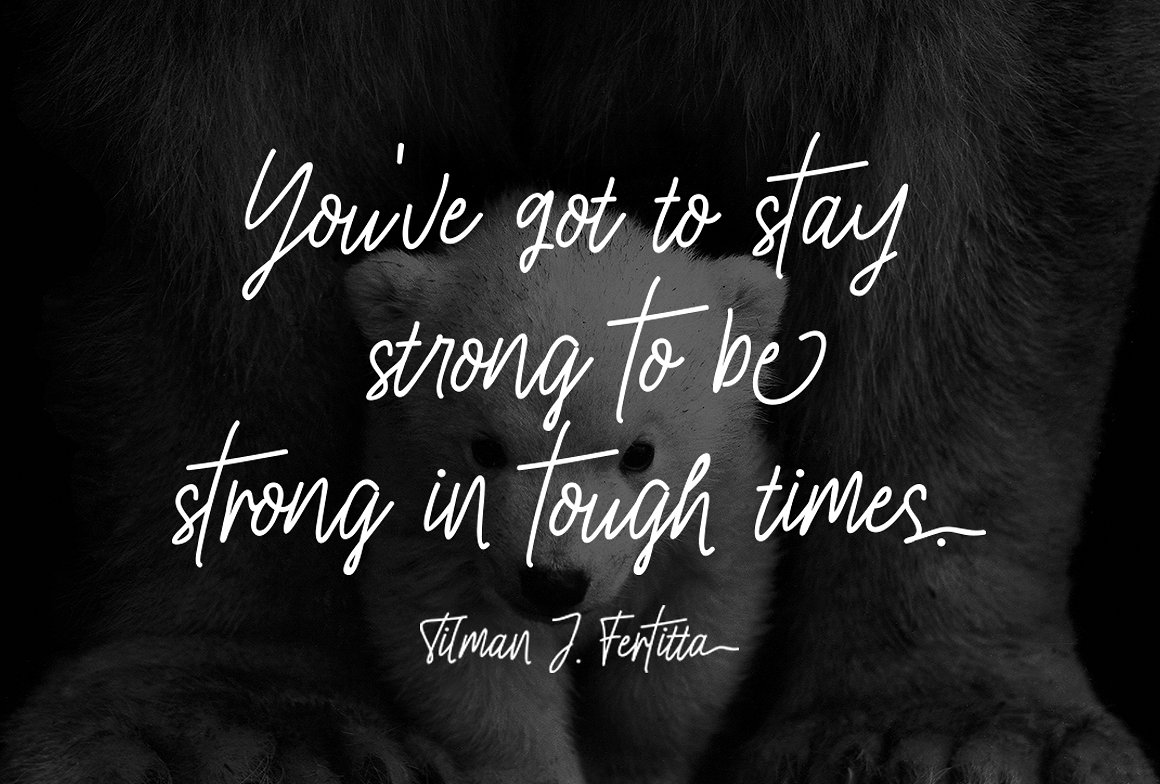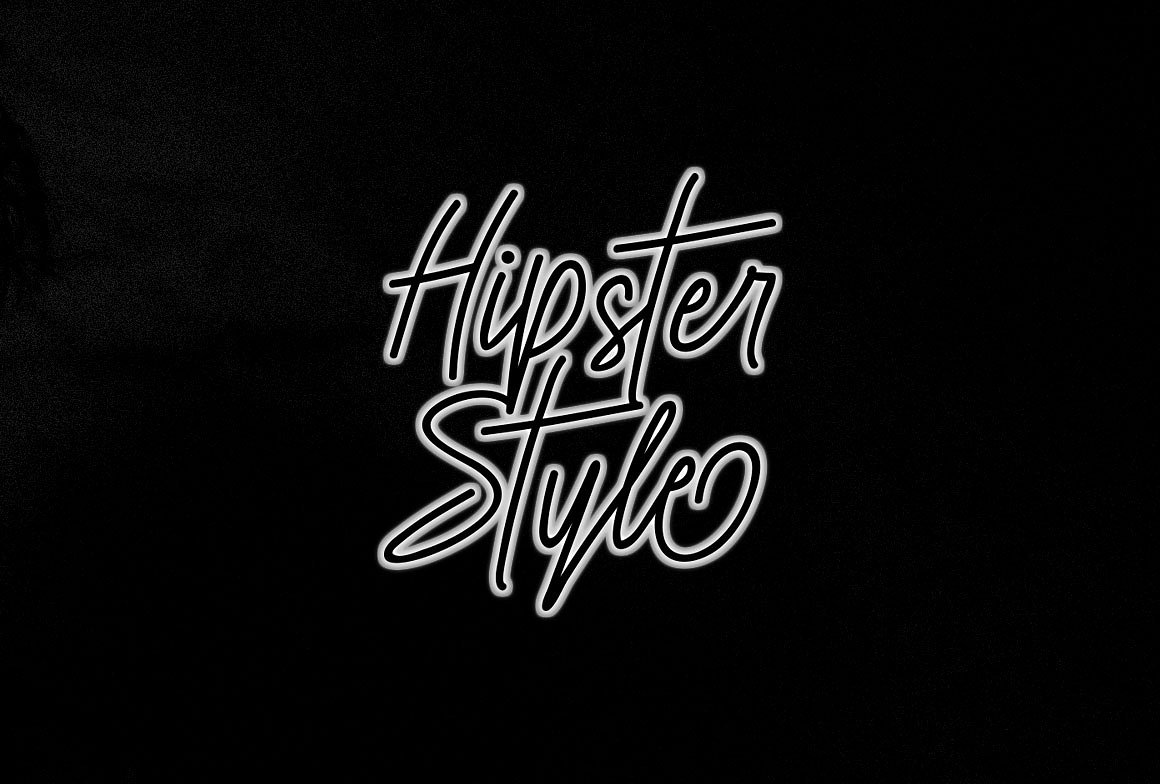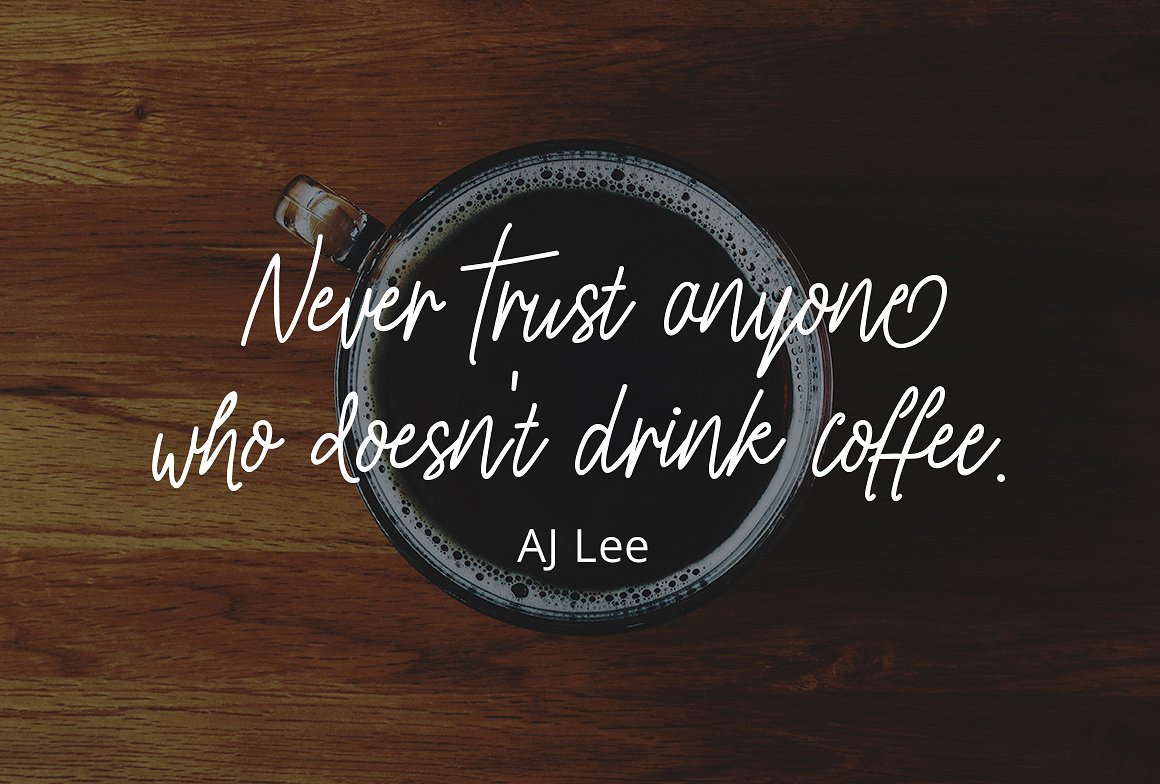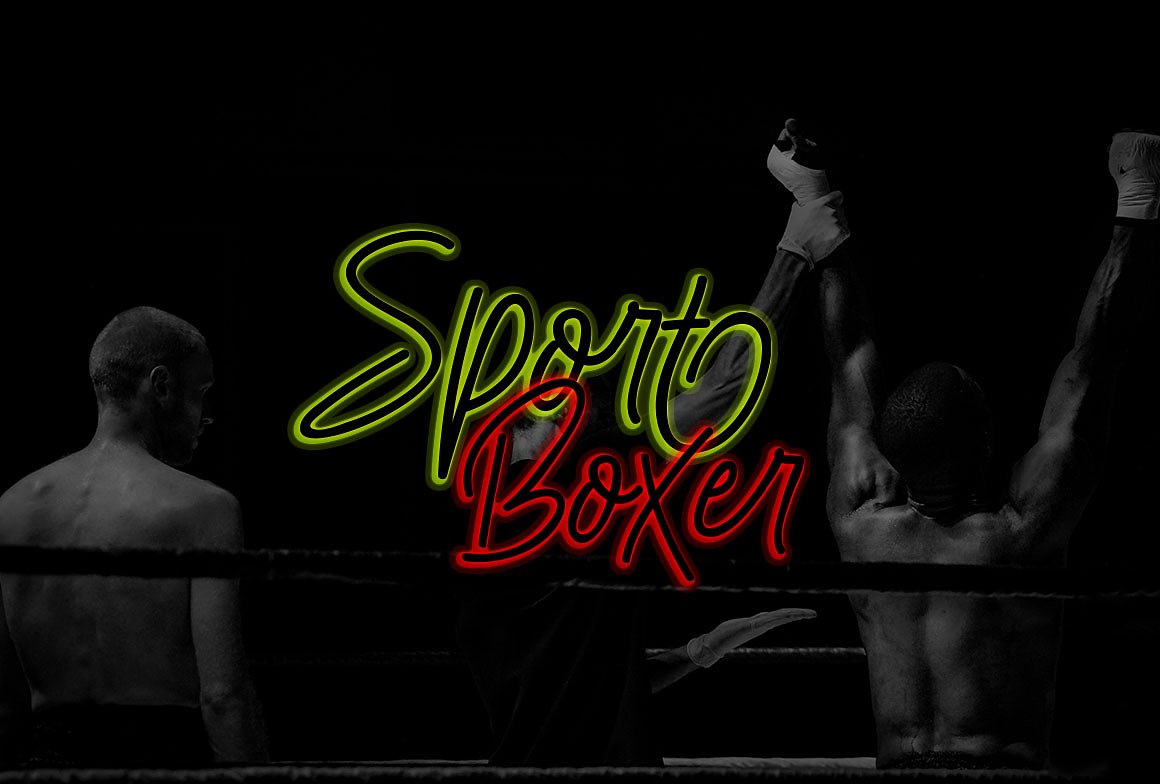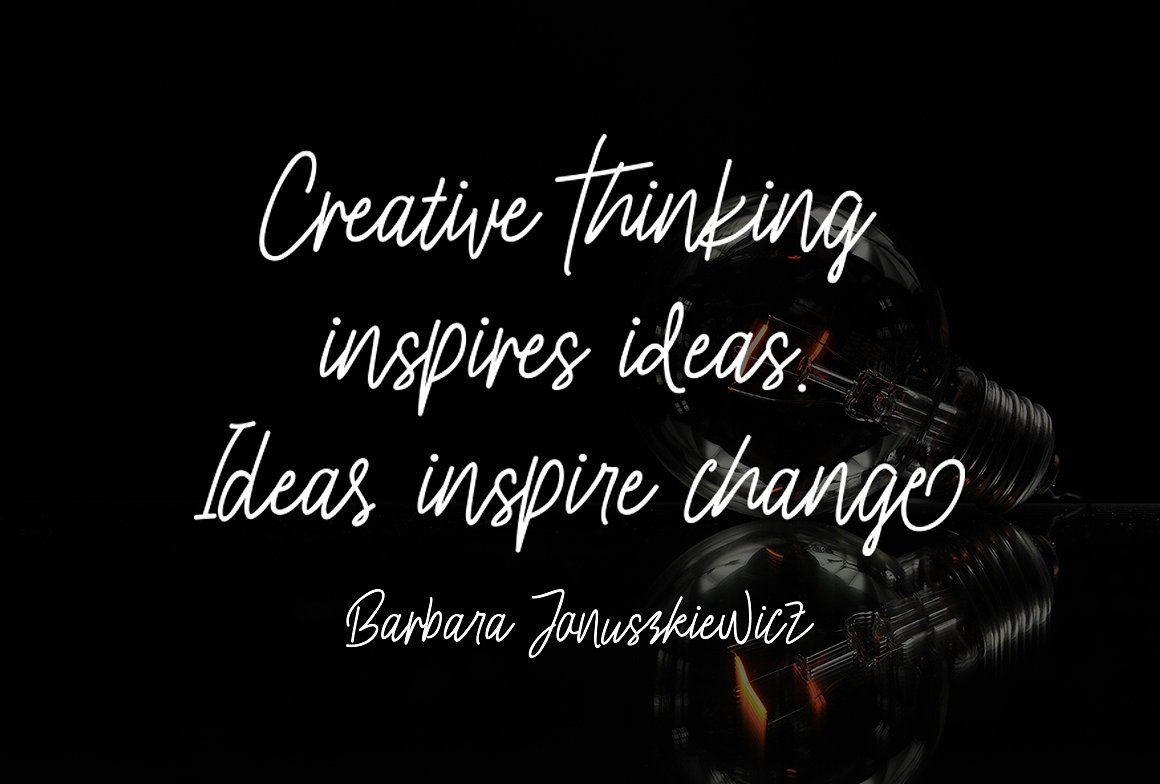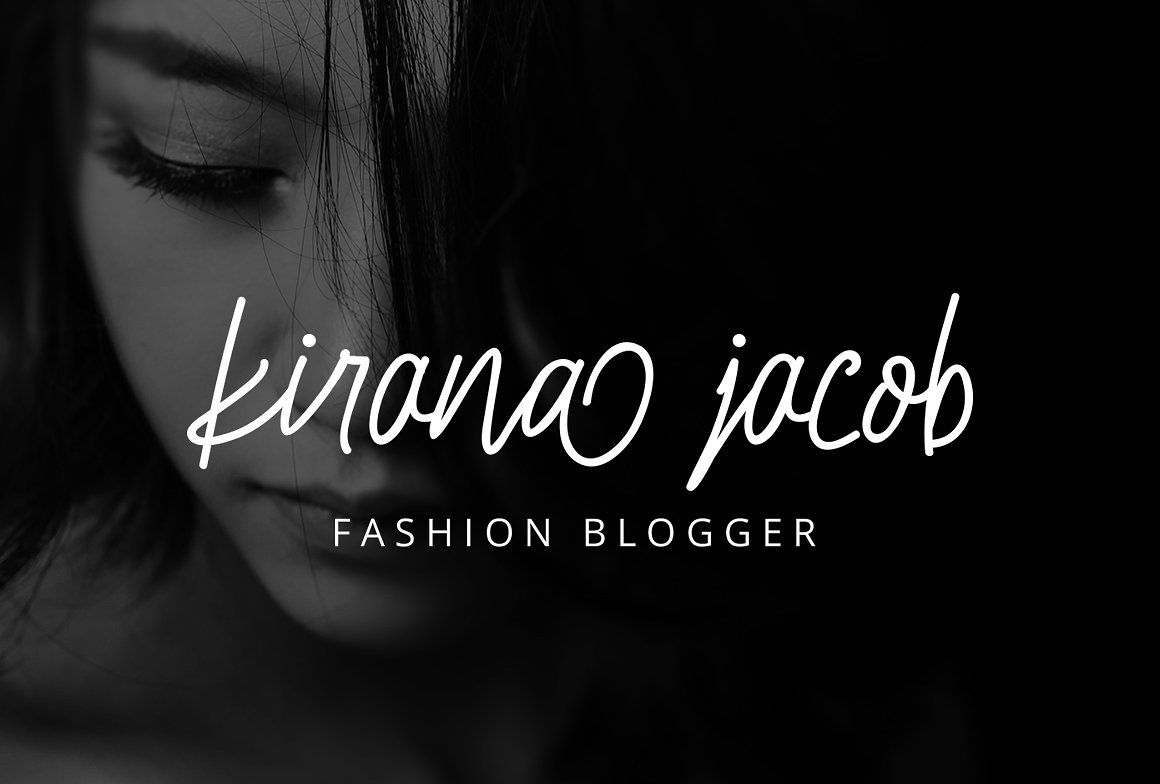
Introducing Charlion Script Font: Elevate Your Designs with Elegance and Flair
In the world of typography, script fonts hold a special place for their ability to add a touch of elegance, sophistication, and personality to any design. Among the myriad of script fonts available, Charlion Script Font stands out as a versatile and stylish choice for designers and crafters alike. Charlion is a casual signature script that comes in two individual styles: Script and Slant Script, offering a range of creative possibilities for your projects.
What Makes Charlion Script Font Unique?
Charlion Script Font is designed to bring a sense of casual elegance to your designs. Its unique charm lies in its fluid strokes and graceful letterforms, which can instantly elevate the aesthetic of any project. Whether you’re working on a branding project, a wedding invitation, a packaging design, or a digital platform, Charlion offers the versatility to fit various themes and styles.
The Two Styles of Charlion: Script & Slant Script
Charlion’s versatility is further enhanced by its two distinct styles:
- Script Style: The original script style of Charlion boasts smooth, connected letters that flow seamlessly into one another. This style is perfect for creating elegant and cohesive text that can be used for titles, headings, or any place where a touch of sophistication is desired.
- Slant Script Style: For those looking to add a bit more dynamism to their designs, the Slant Script style offers a slanted version of the original script. This style adds a sense of movement and energy, making it ideal for projects that require a bit more flair and personality.
Key Features of Charlion Script Font
Charlion Script Font comes with a range of features that make it an excellent choice for designers:
- Easy to Read: Despite its elegant and cursive nature, Charlion maintains a high level of readability, making it suitable for both headings and body text.
- Highly Versatile: With two distinct styles, Charlion can be used across a wide range of projects, from digital and print to branding and advertising.
- Support for Multiple Languages: Charlion supports multiple languages, providing designers with the flexibility to use it in international projects.
How to Use Charlion Script Font in Your Designs
Incorporating Charlion into your designs is straightforward and can significantly enhance your project’s aesthetic:
- Branding and Logotypes: Use Charlion to create elegant and memorable brand names or logotypes that stand out.
- Wedding and Event Invitations: Add a touch of sophistication and romance to wedding invitations, event flyers, or save-the-date cards.
- Packaging Design: Elevate your product packaging with Charlion, making your product stand out on shelves.
- Digital Content: Use Charlion in digital banners, social media graphics, and website headers to add a touch of elegance and professionalism.
Charlion Script Font, with its two beautiful styles of Script and Slant Script, offers designers and crafters a versatile tool to enhance their projects with elegance and personality. Its readability, compatibility with design software, and support for multiple languages make it an excellent choice for a wide range of applications. Whether you’re a professional designer or a DIY enthusiast, Charlion can help you achieve your creative goals with style and sophistication.